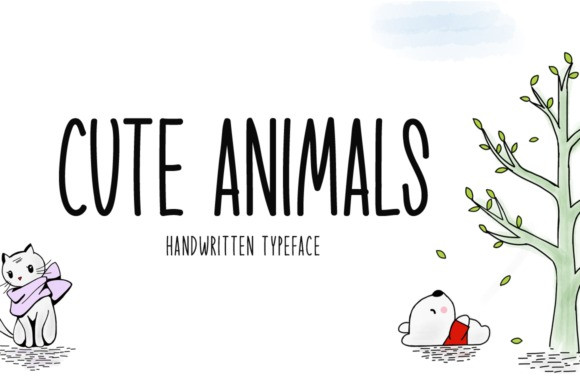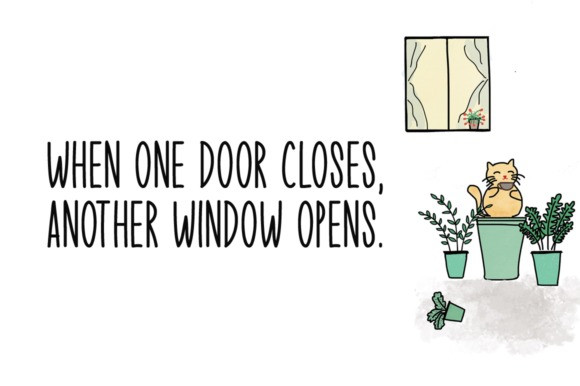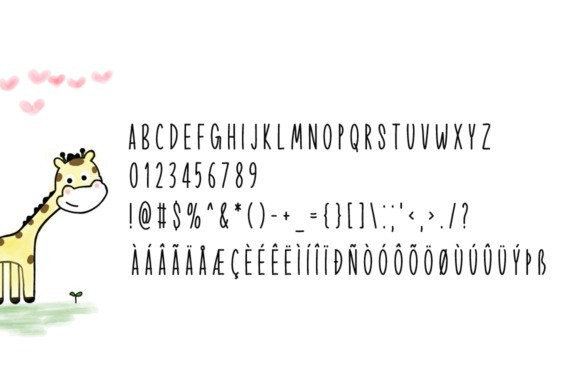
White Bear Display Font
White Bear is a quirky and fun looking display font. Adaptable, simple and friendly, this font will be an incredible asset to your fonts’ library, as it has the potential to elevate any creation.